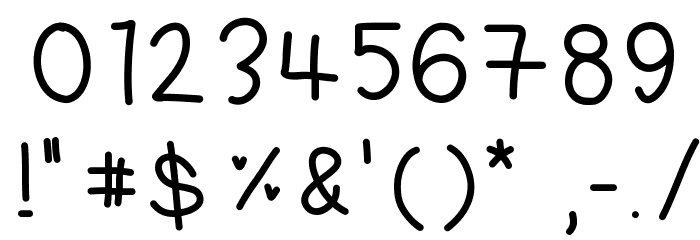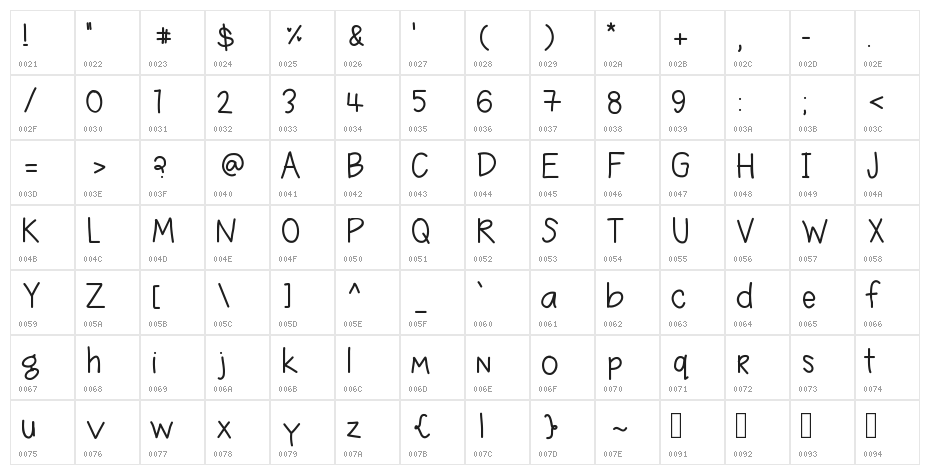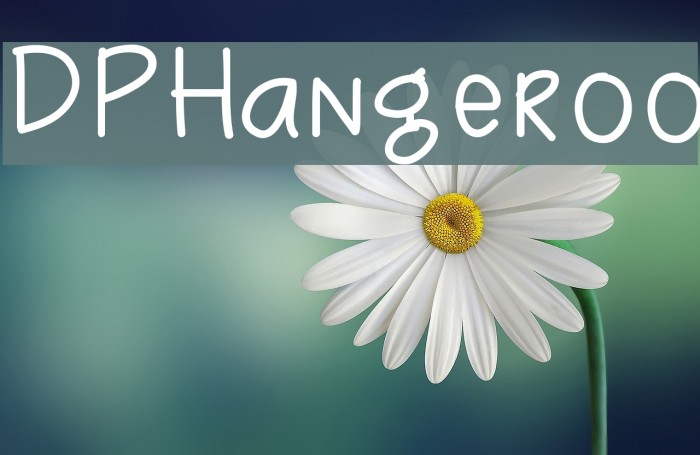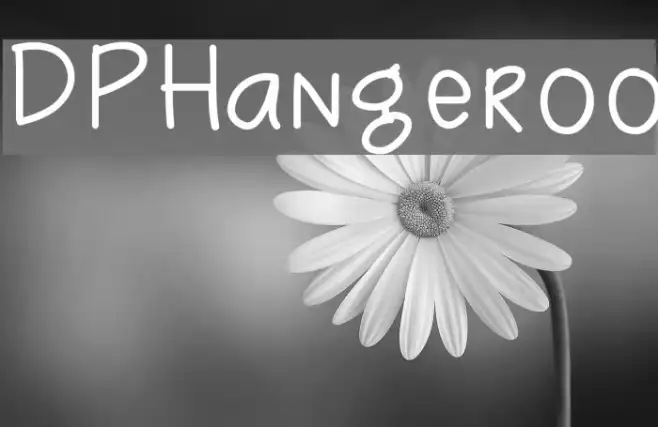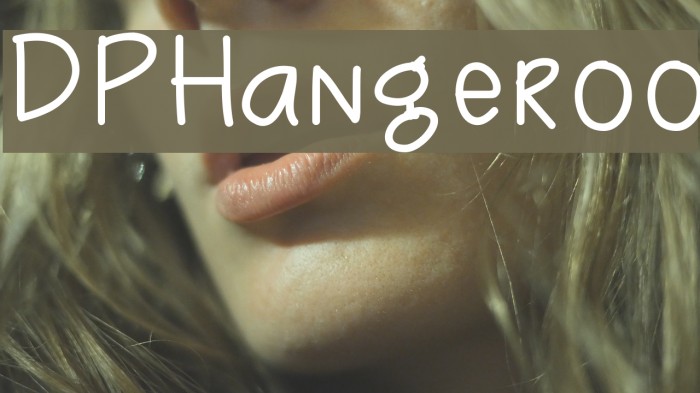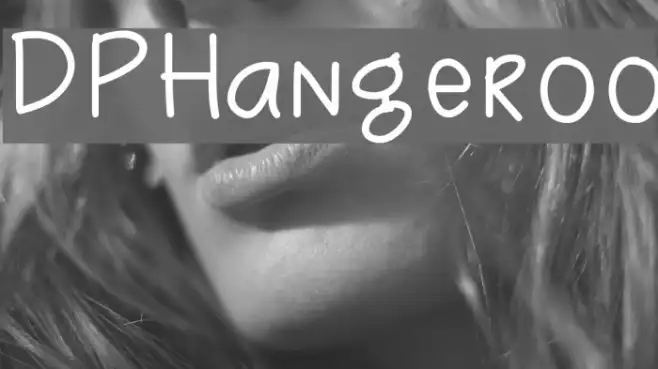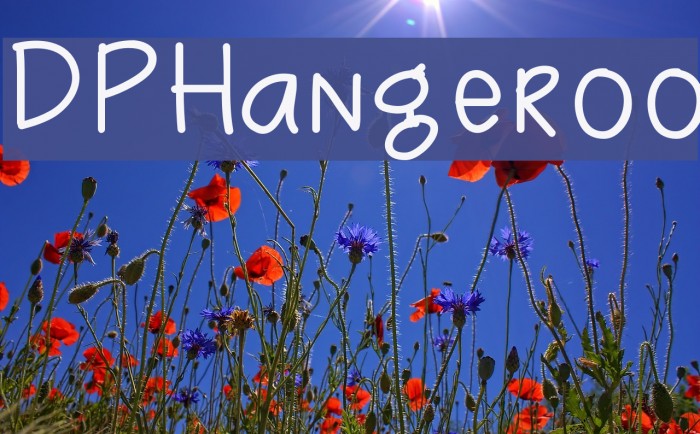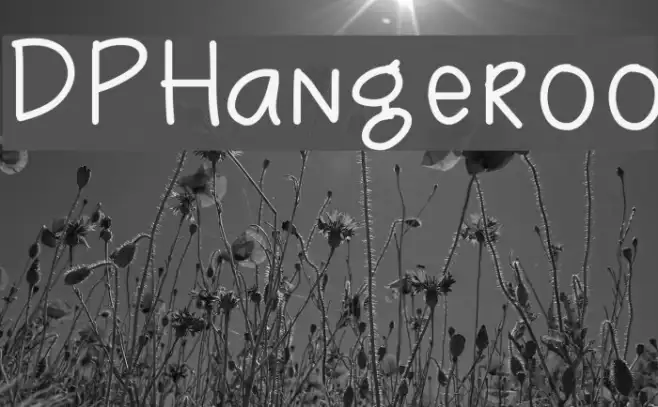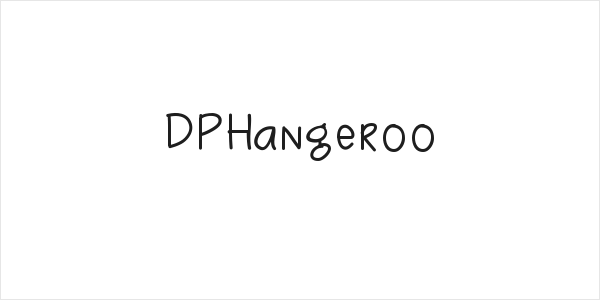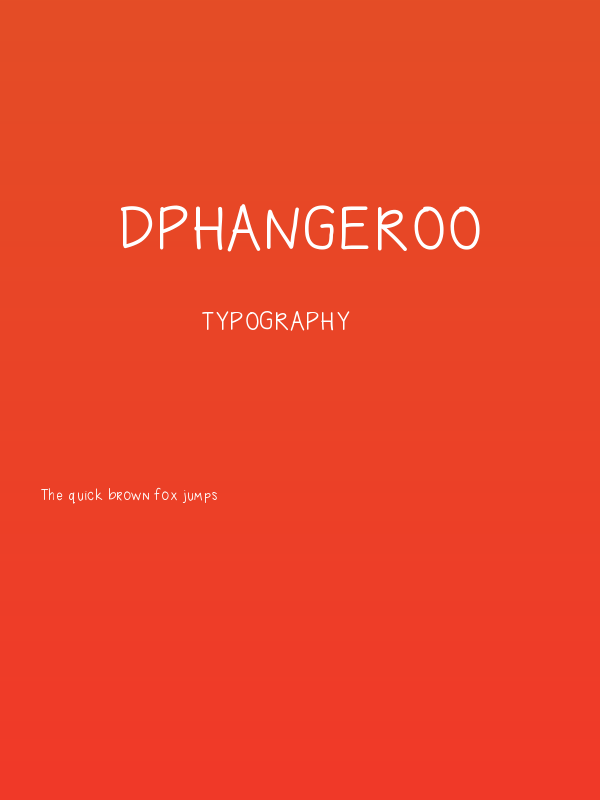
DPHangeroo Font
DPHangeroo Description
This playful and informal font features a handwritten style with a casual and friendly appearance. The characters are slightly irregular, giving it a personal touch that mimics natural handwriting. The strokes are consistent in width, providing a uniform look across all characters. The font includes both uppercase and lowercase letters, numerals, and a variety of special characters, making it versatile for different uses. Its simplicity and charm make it suitable for projects that require a personal or whimsical feel.